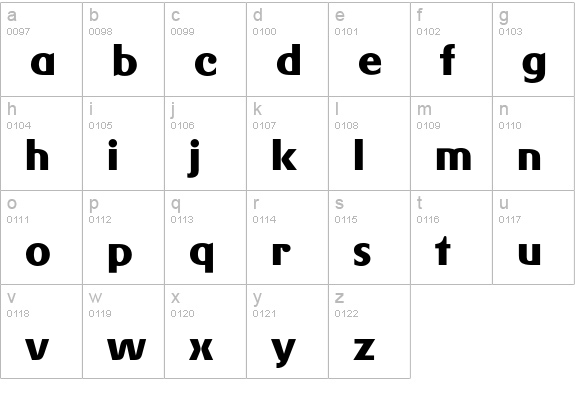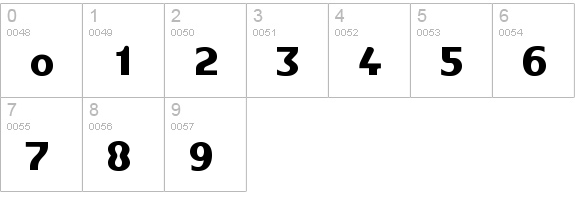
Gerstner BQ Bold is a strong, high-contrast variant in the Gerstner typeface family \xE2\x80\x94 well suited to headlines, attention-grabbing titles, and strong calls-to-action.
Gerstner BQ Bold font is a modern and stylish typeface that exudes confidence and sophistication. Its bold and striking design makes it perfect for headlines, titles, and other attention-grabbing text. With its clean lines and sharp edges, Gerstner BQ Bold font is sure to make a statement in any design project. The best part? Gerstner BQ Bold font is available for free download at FontsMarket.com. This means you can easily add this versatile font to your collection without having to spend a dime. Whether you're working on a print design, web project, or anything in between, Gerstner BQ Bold font is a fantastic choice that will help elevate your work to the next level. Don't miss out on this opportunity to enhance your designs with the sleek and modern aesthetic of Gerstner BQ Bold font.